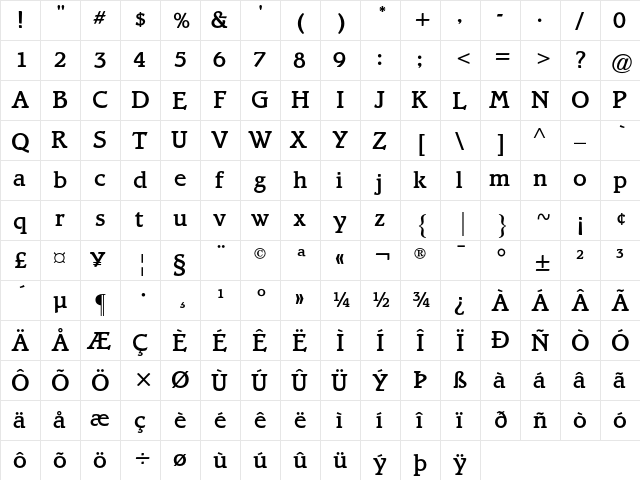
Bramley AT Medium Regular Font Preview
Bramley AT Medium Regular
Design Context for Bramley AT Medium Typeface
Bramley AT Medium takes a measured approach to typography — its balanced proportions and neutral character make it a reliable workhorse for both digital and print work.